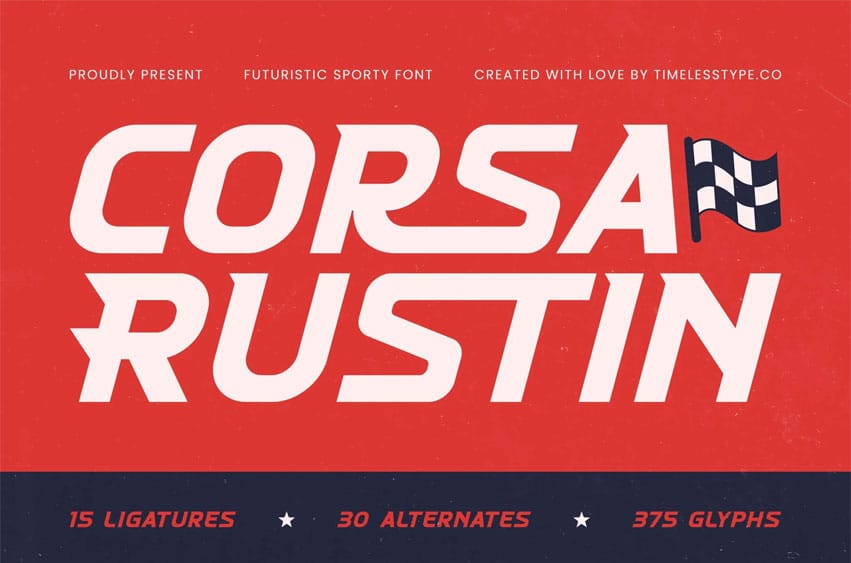
Corsa Rustin Font is a futuristic, sporty font built for speed, precision, and modern performance aesthetics. With its aerodynamic angles, sharp terminals, and dynamic forward-leaning construction, this typeface is perfect for racing themes, esports branding, automotive posters, tech visuals, bold apps, and high-energy headline designs.
This font includes 15 ligatures, 30 alternates, and 375 glyphs, giving you complete flexibility for creating impactful layouts—from fast-paced branding to competitive event graphics. Corsa Rustin captures the spirit of motorsport culture with a clean, powerful attitude suitable for digital and print projects.
Corsa Rustin Font Preview